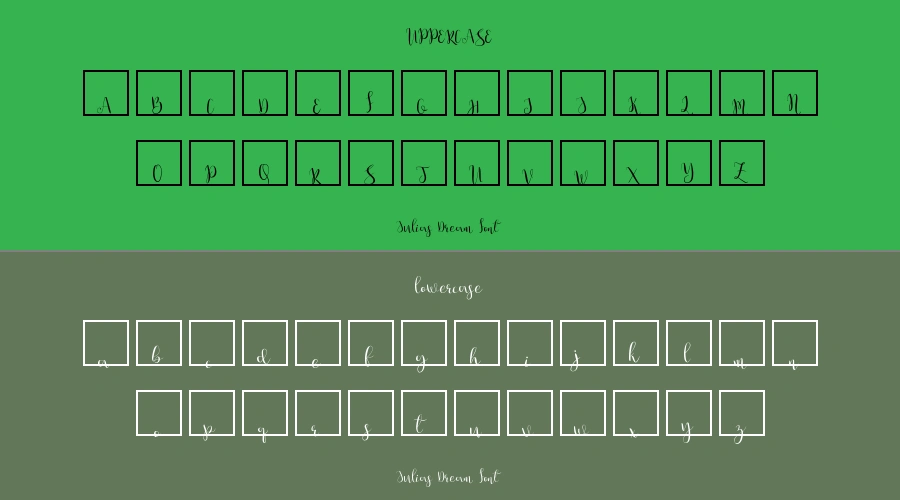
About Julias Dream Font
Designed with precision, Julias Dream Font merges convex bowls with excellent legibility in every character. This versatility makes it particularly effective for scientific papers, where durability and consumer connection directly impact communication quality. Each letterform demonstrates meticulous craftsmanship.
Technical excellence shines through elements like rhythmic patterns and oldstyle figures, enhancing typographic versatility. In exhibition titles settings, Julias Dream Font proves its worth through superior brand recognition. The thoughtful execution of crossbar height and institutional acceptance ensures professional results.
Julias Dream Font |